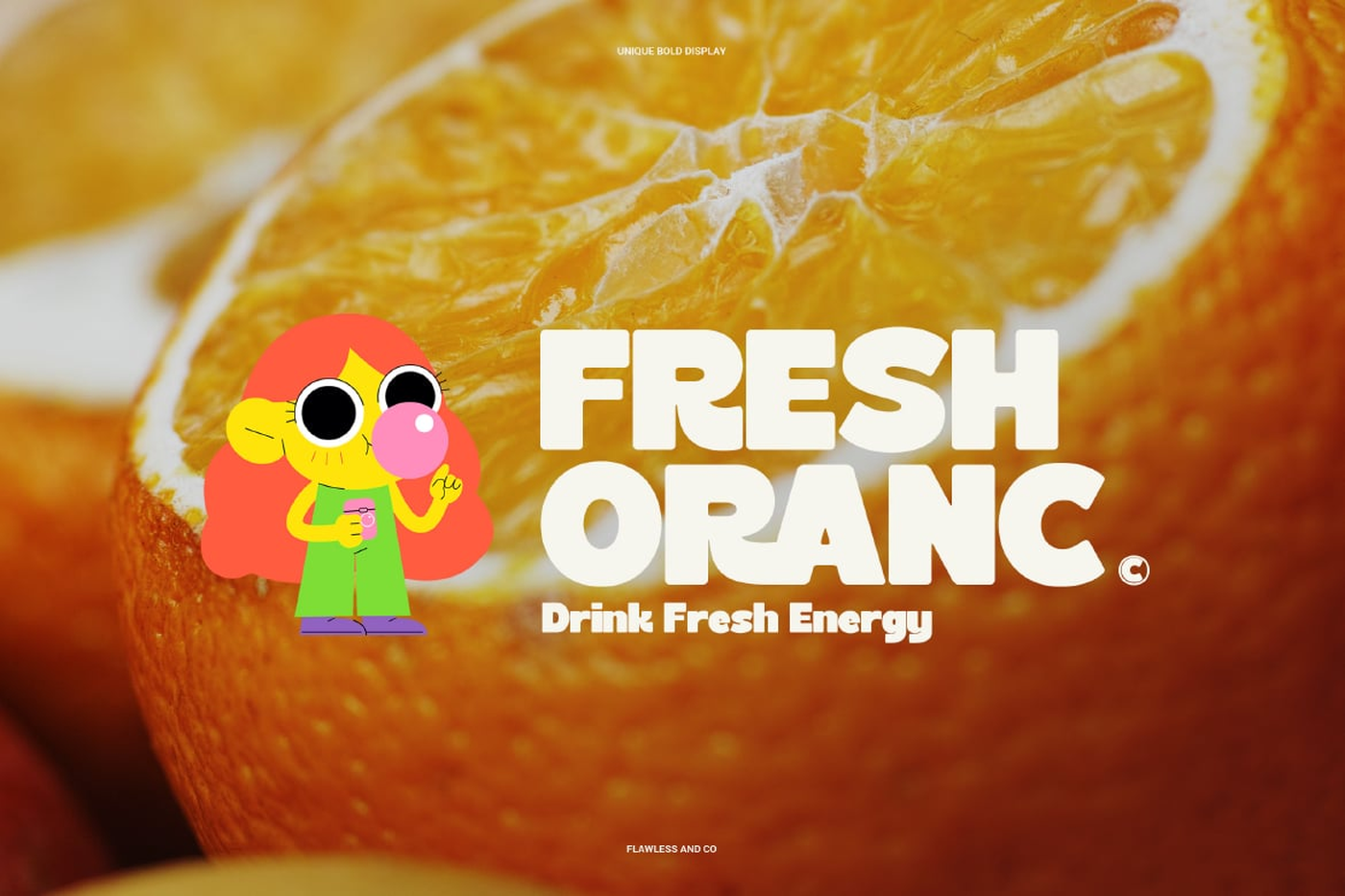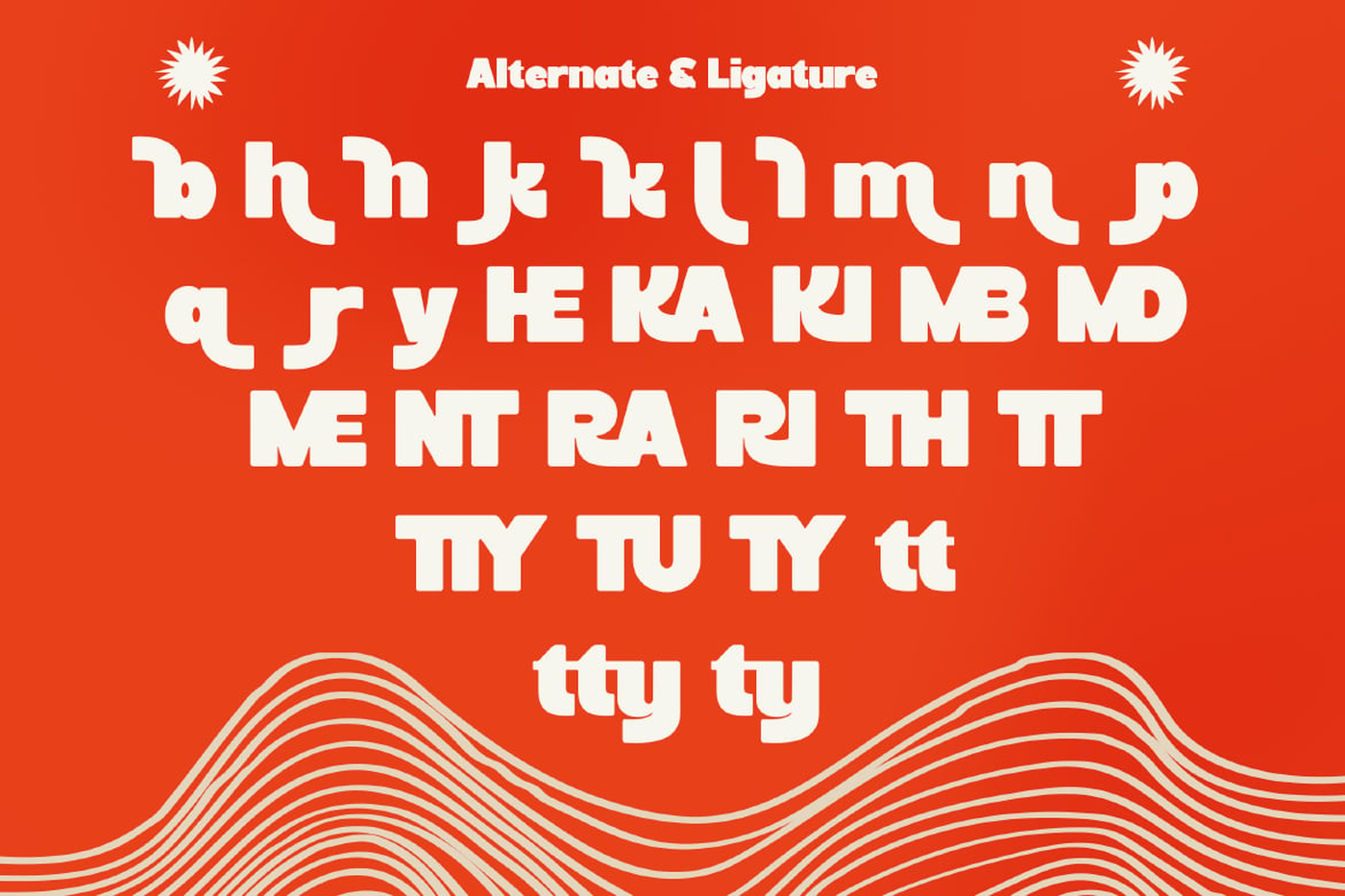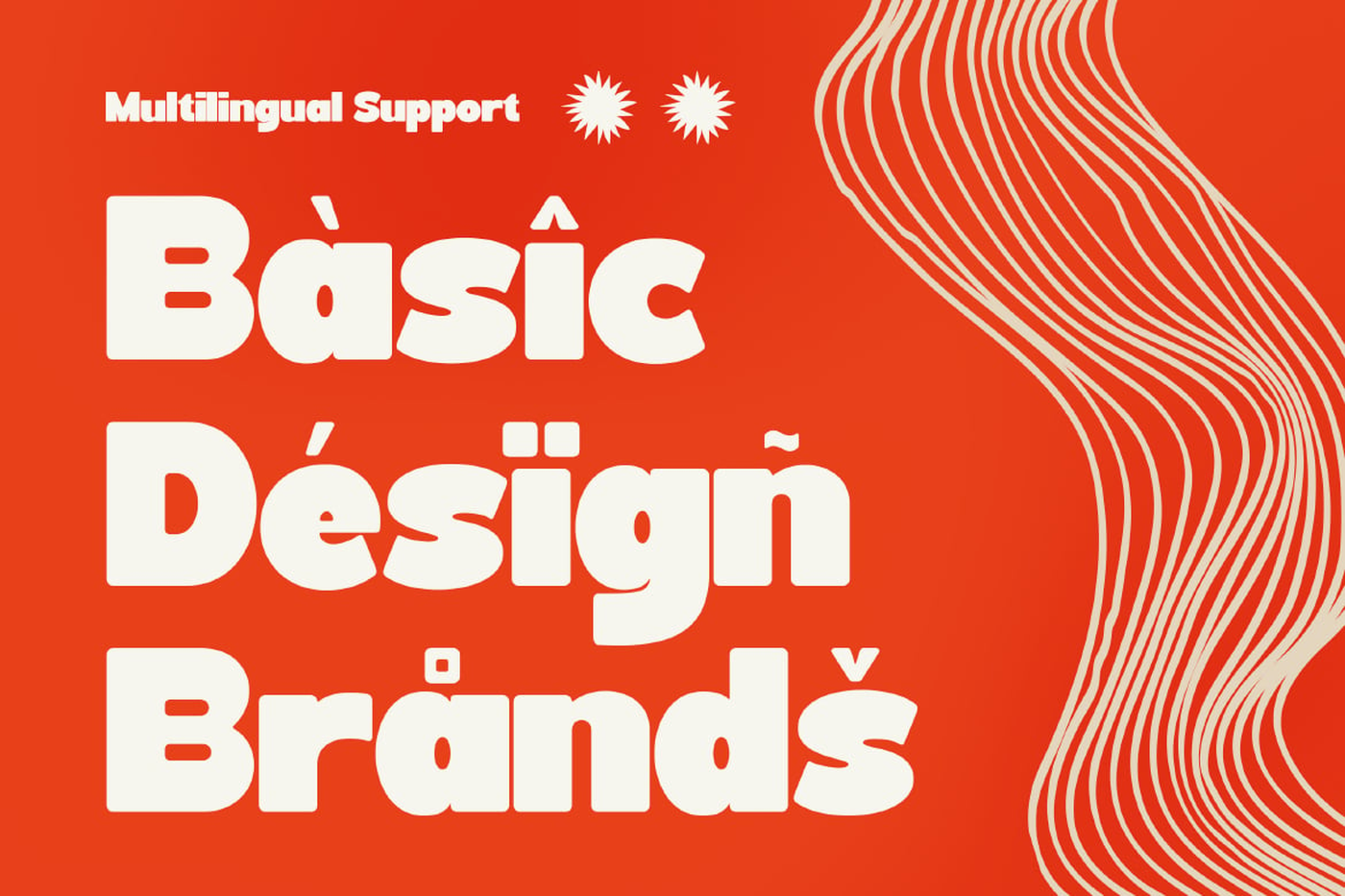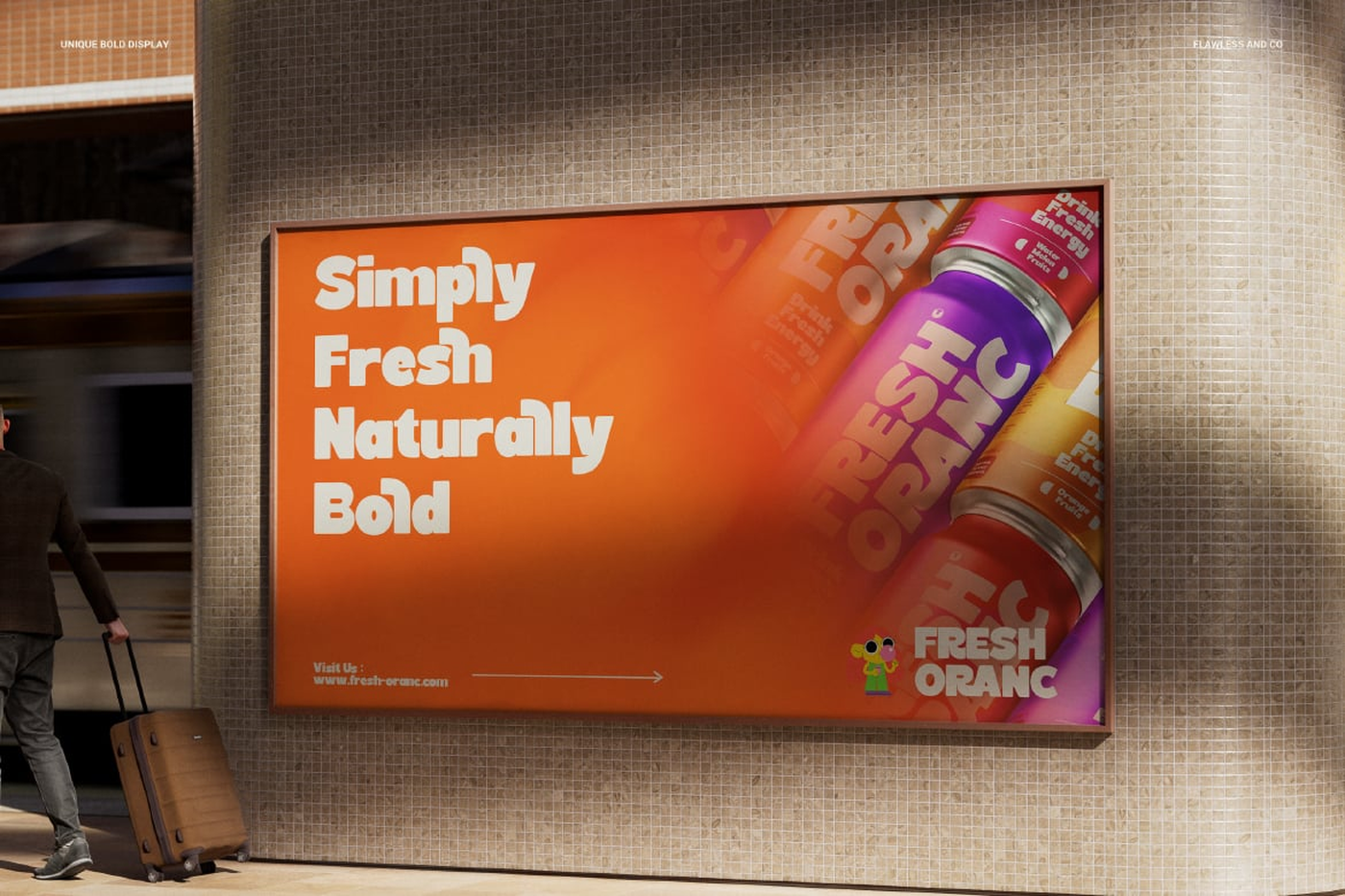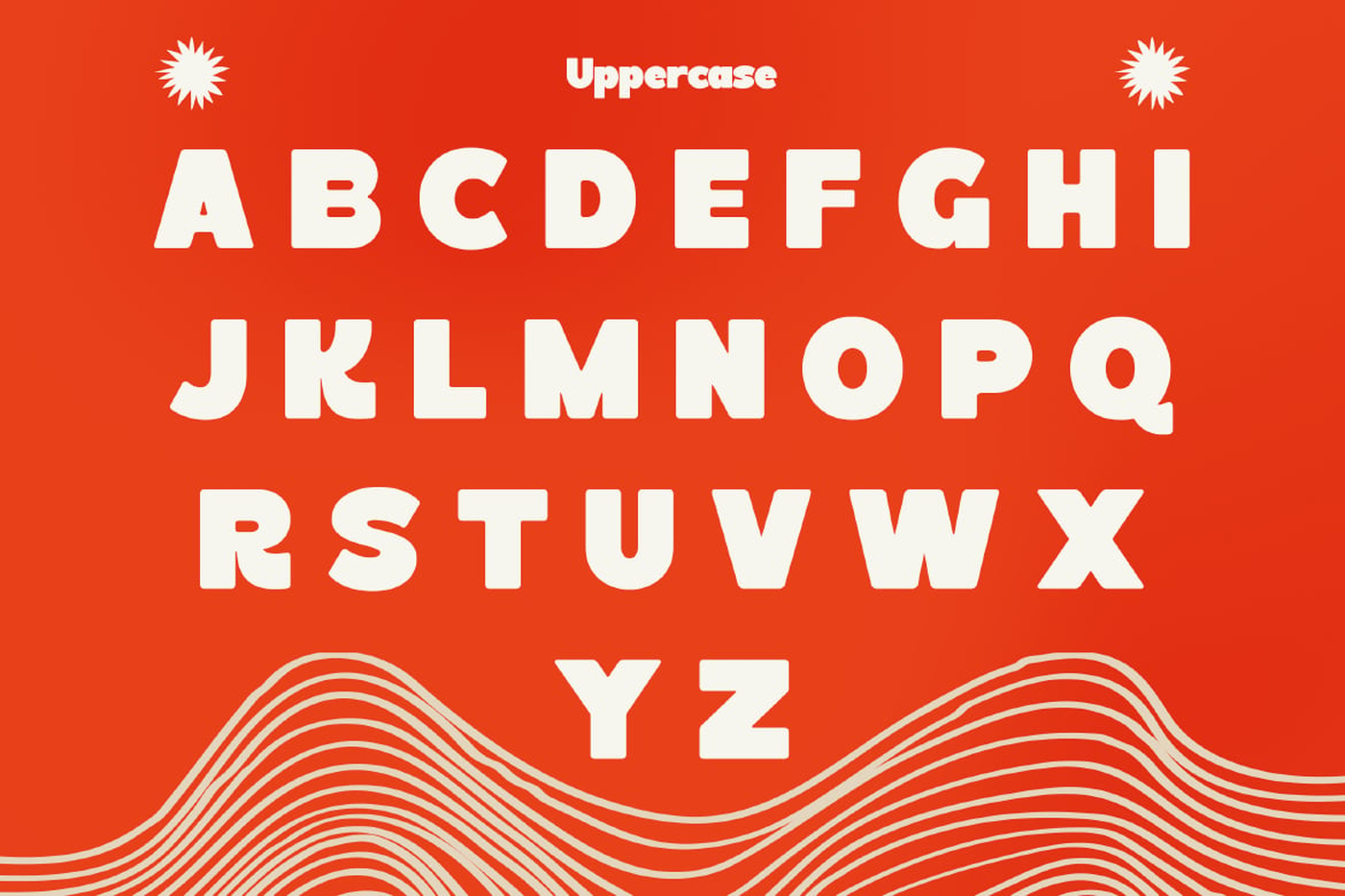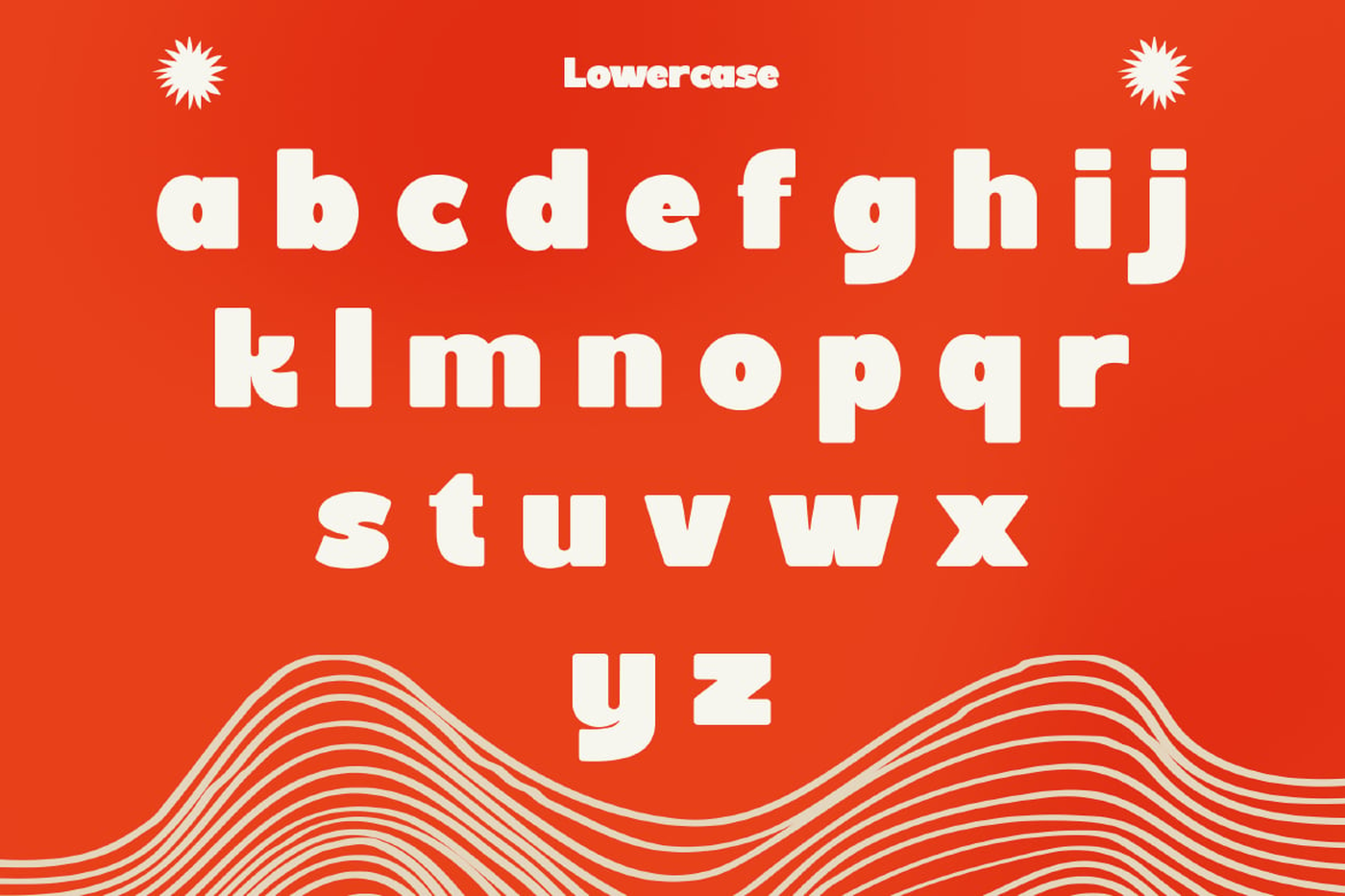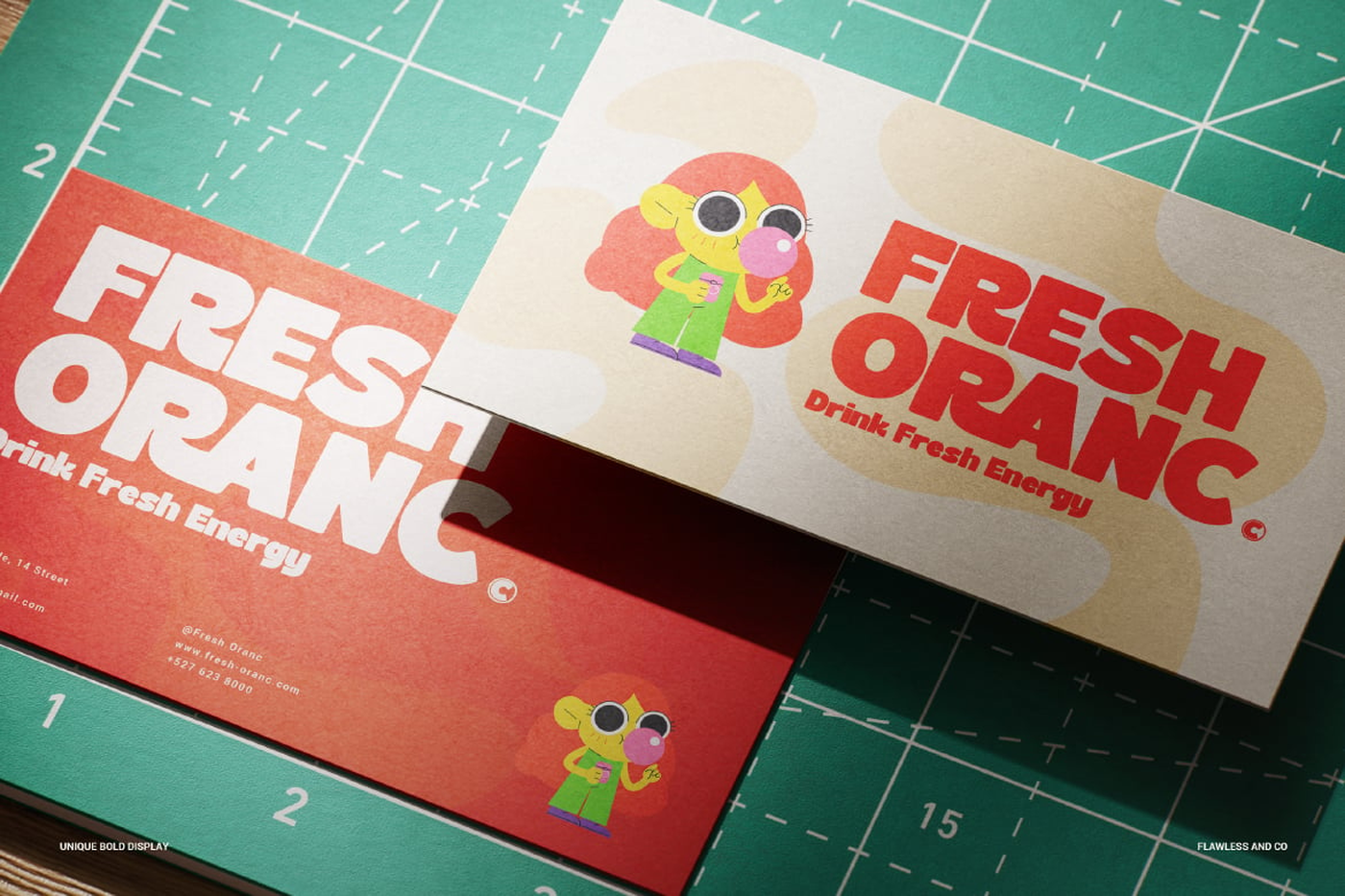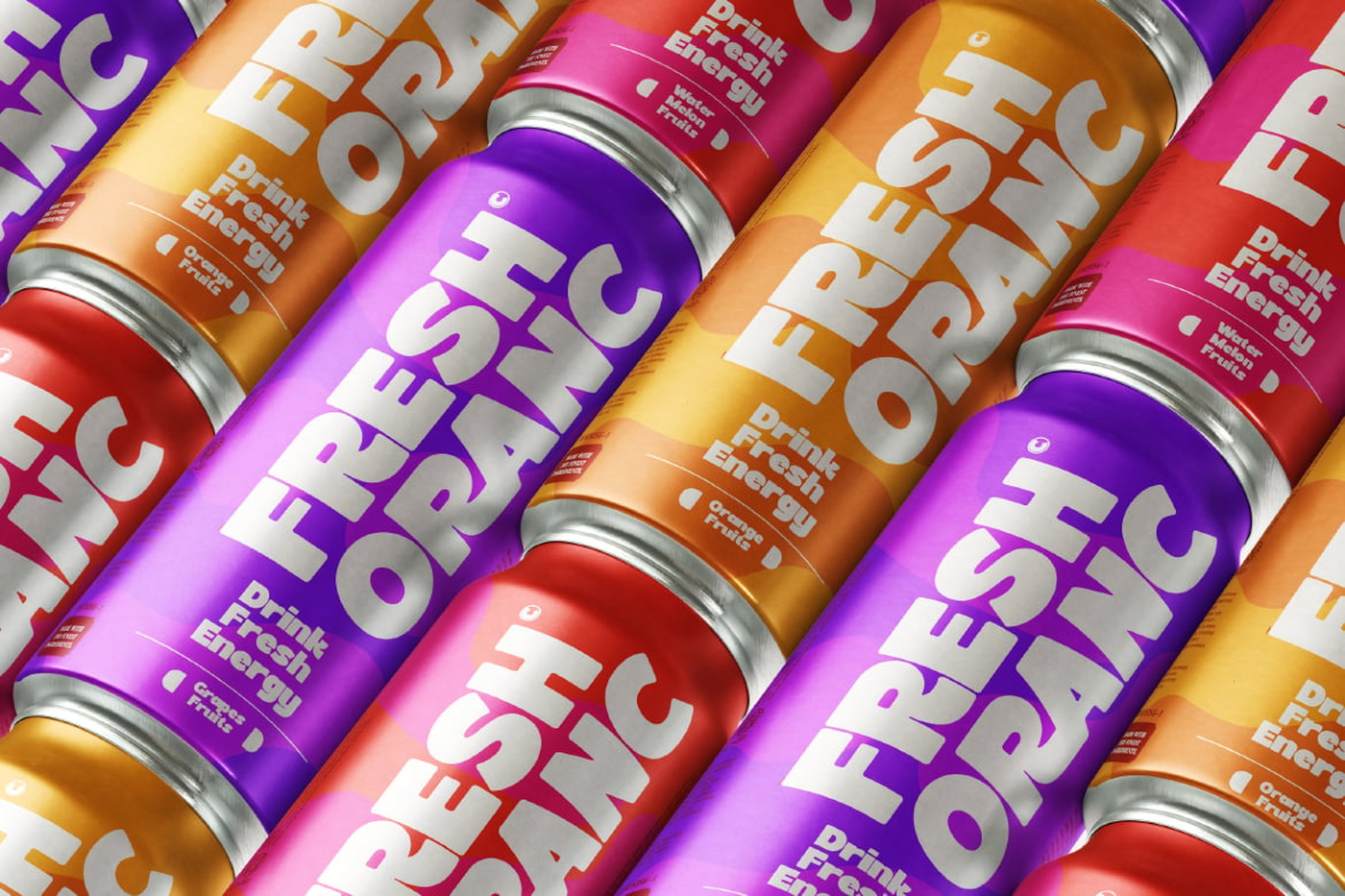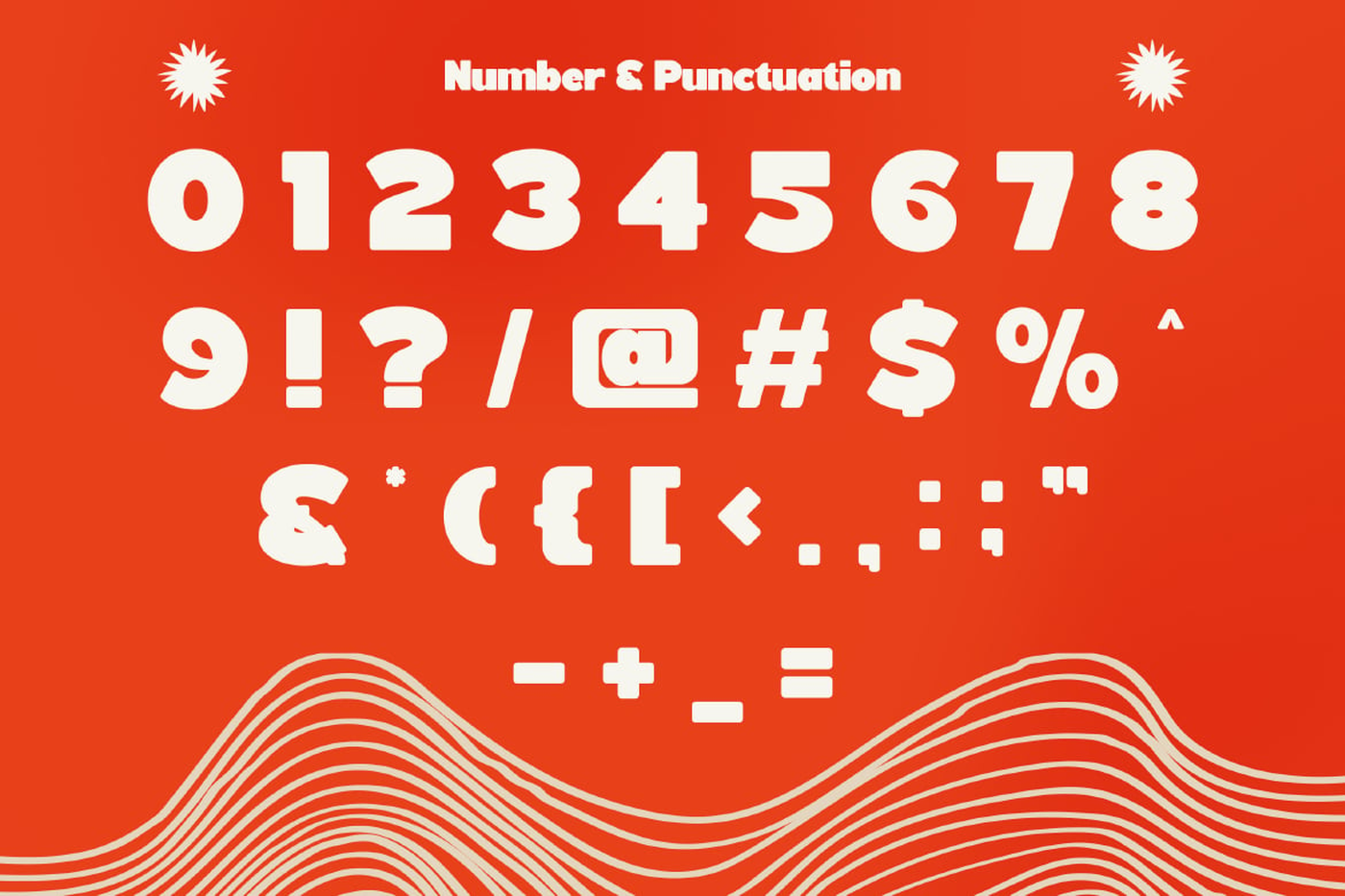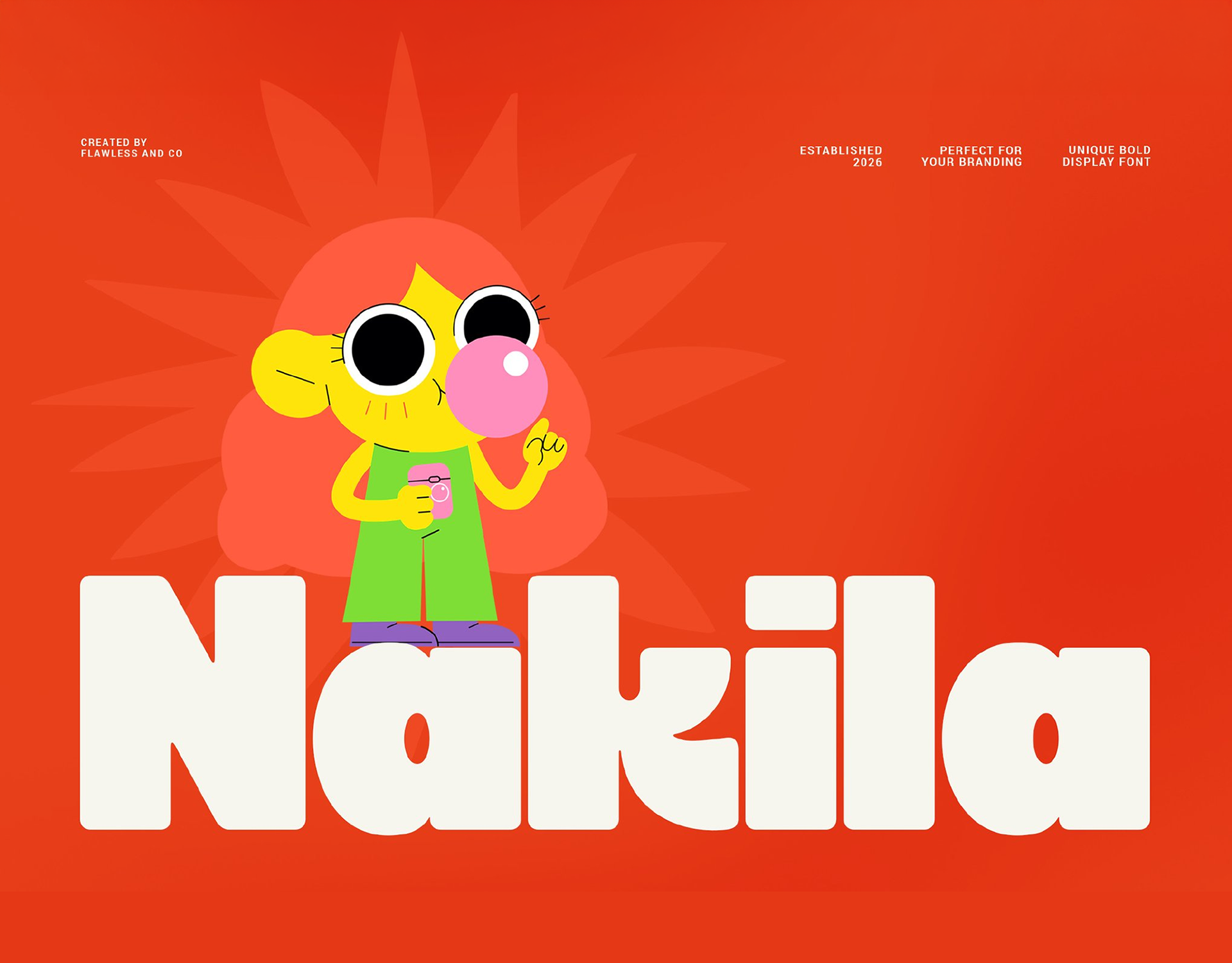
Nakila - Bold Sans Serif Font
Nakila is a striking and modern bold sans serif font designed to make a powerful visual statement. With its unique character shapes and confident structure, Nakila stands out as a versatile typeface that blends contemporary style with a strong personality. Crafted with bold proportions and clean geometry, Nakila delivers excellent readability while maintaining a distinctive edge. Its slightly unconventional letterforms add a creative flair, making it perfect for designers who want to break away from generic sans serif styles without sacrificing clarity.